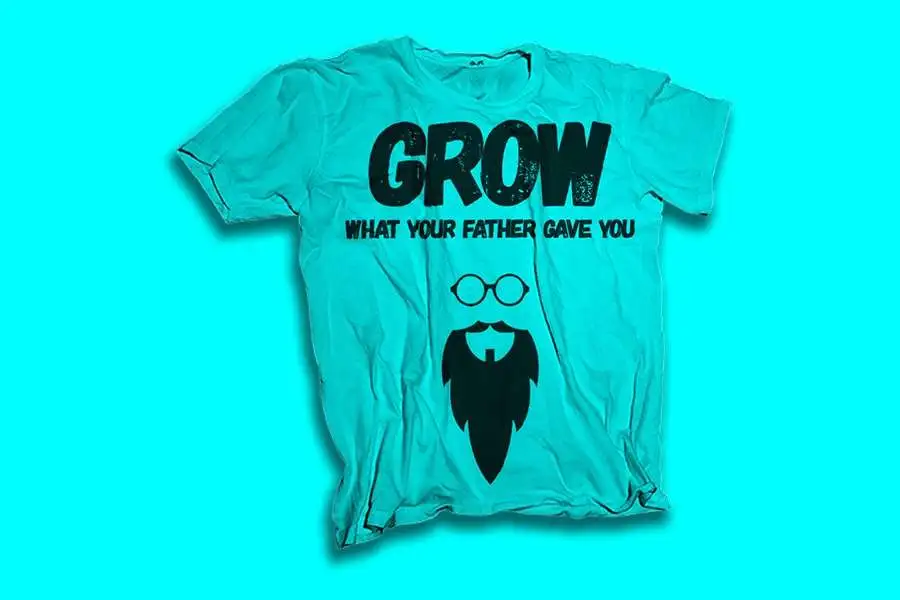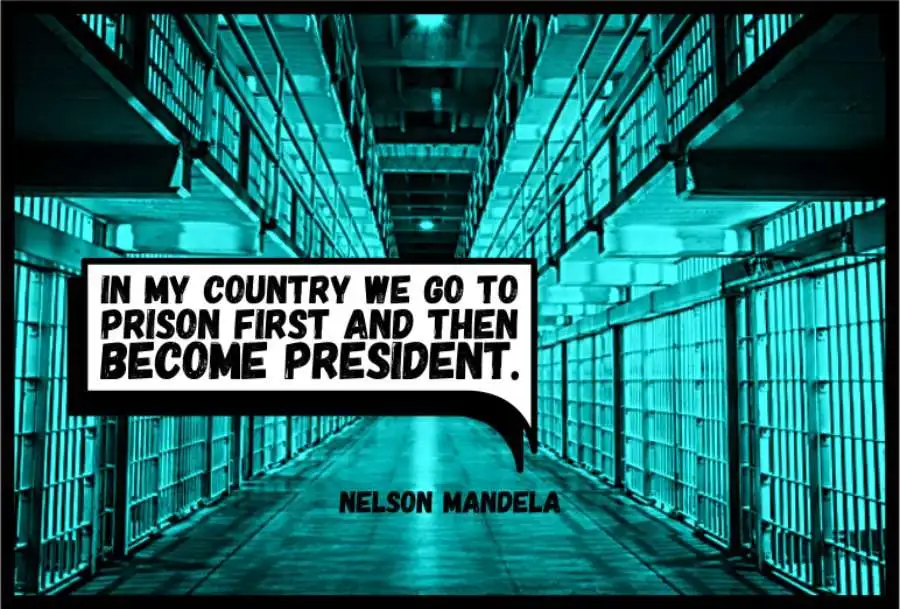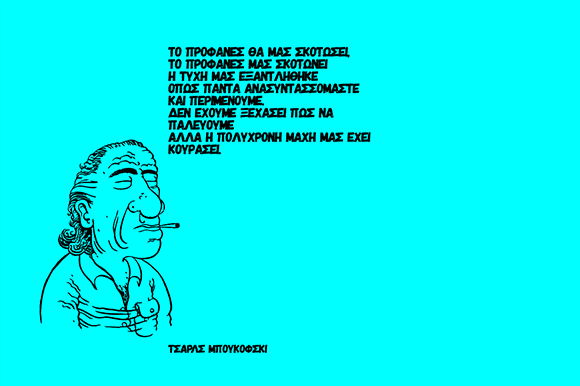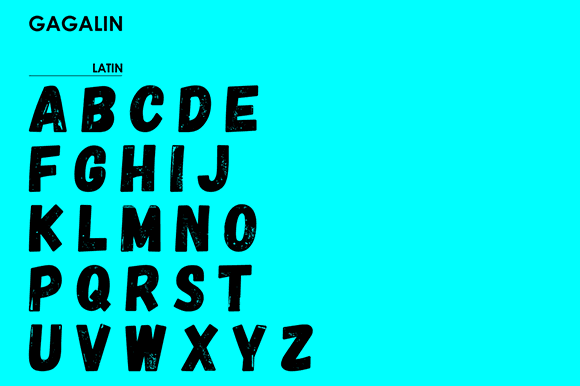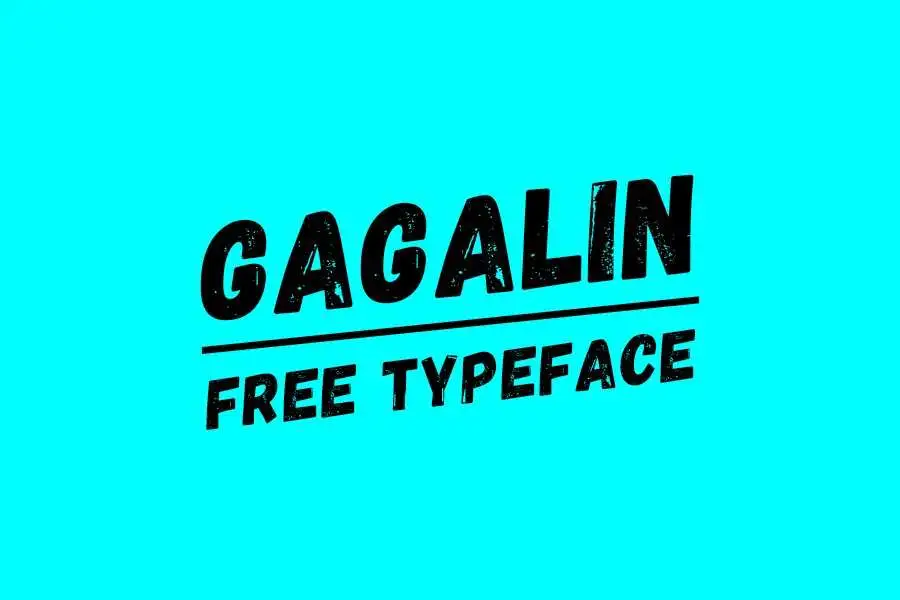
Gagalin font is a vintage-inspired comic typeface that blends charm with a rugged brush texture, giving it a handcrafted, raw feel. Designed by Iordanis Pasas from Athens, Greece, this brush fonts captures the nostalgia of old-school comic books and adds a luxurious retro aesthetic to your work. Its scratchy edges and uneven strokes create a unique character that’s both bold and full of personality.
This stunning display font is ideal for making your design stand out. Whether you’re working on posters, signage, or promotional graphics, Gagalin brings a strong visual presence that captures attention instantly. The bold letterforms and expressive style are perfect for designers looking to infuse their projects with a playful yet vintage tone, making it a versatile choice for display fonts collections.
Gagalin works beautifully across various applications—especially on T-shirts, apparel branding, flyers on textured surfaces, and even packaging designs. Its rough yet refined appearance gives it the ability to enhance both modern and retro themes, ensuring your message is delivered with both clarity and character.